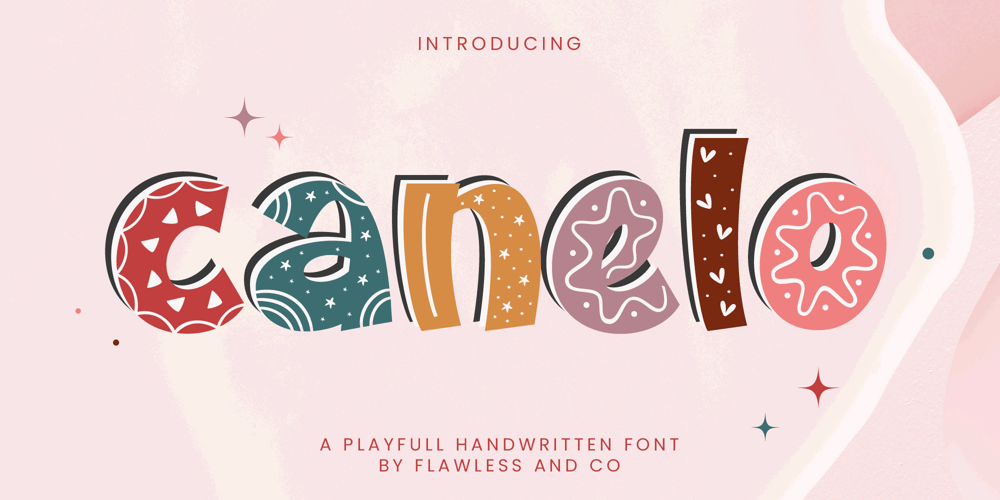
Canelo Font Family was designed by Achmad Yani and published by Flawlessandco. Canelo contains 2 styles and family package options. Introducing “Canelo” is a playful handwritten font. Dive into the world of joyous design with “Canelo,” a delightful handwritten font that brings an element of fun to every project. This font contains a regular style and fun style, which is equipped with patterns in fun-style fonts.There’s some connected letters and some alternates that suitable for any graphic designs such as branding materials, t-shirt, print, business cards, logo, poster, t-shirt, photography, quotes .etcThis font support for some multilingual. Also contains uppercase A-Z and lowercase a-z, alternate character, numbers 0-9, and some punctuation.If you need help, just write me! Thanks so much for checking out my shop!